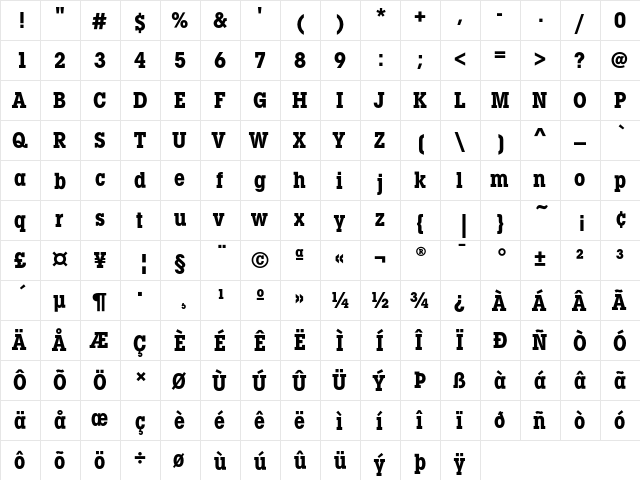
LubalinGraphEF BoldCond
Design Context for LubalinGraphEF Typeface
LubalinGraphEF offers clean, dependable letterforms without strong stylistic allegiance, making it a practical choice for designers who need flexibility. Its bold stroke weight gives it real presence on the page. The condensed width makes it efficient for tight spaces without sacrificing legibility.